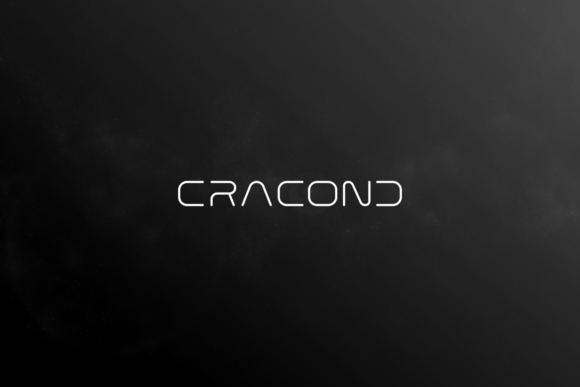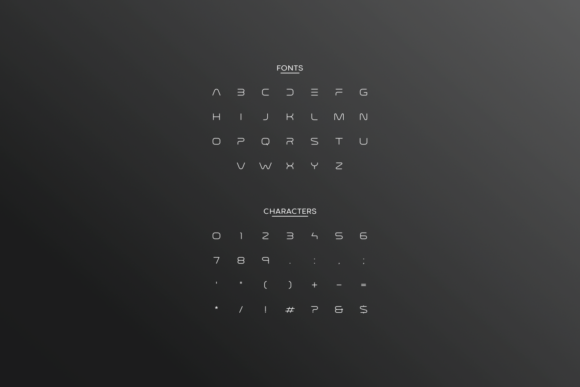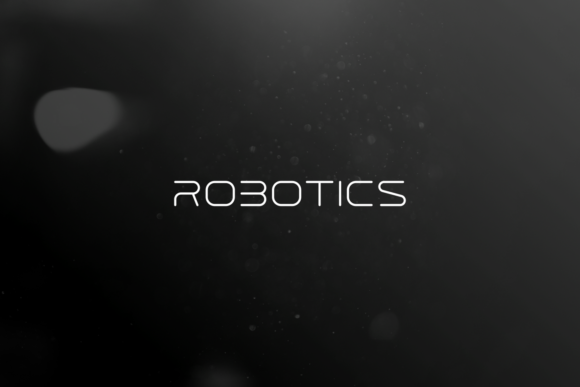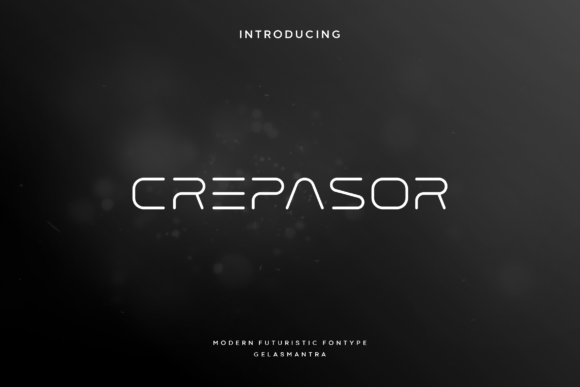
Introducing Crepasor Font: The Epitome of Modern Elegance
In the realm of typography, fonts play a pivotal role in defining the aesthetic and tone of any design project. Whether you’re crafting a stunning website, designing business cards, or brainstorming ideas for your next big project, the right font can elevate your work from ordinary to extraordinary. This is where Crepasor Font comes into play—a modern, elegant, and futuristic typeface that is poised to revolutionize the way you approach design.
The Essence of Crepasor Font
Crepasor Font is characterized by its sleek, contemporary design, boasting a thinner and more refined aesthetic that speaks to the needs of modern designers. Its futuristic appeal is undeniable, making it an ideal choice for projects that demand a cutting-edge look. The sophistication of Crepasor lies not just in its appearance but in its versatility. It seamlessly blends into various design contexts, from digital interfaces to print materials, ensuring that your work stands out with a unique touch.
Ideal Applications for Crepasor Font
The applications for Crepasor Font are vast and varied. Here are a few scenarios where this font truly shines:
- Web Designs: In the digital age, a website’s typography can make or break its user experience. Crepasor Font, with its modern and clean lines, enhances readability while providing a sophisticated look that captivates visitors.
- Business Cards: First impressions are crucial, and business cards are often the first point of contact. Crepasor’s elegant and professional appearance makes it perfect for business cards, helping you stand out in a crowded marketplace.
- Marketing Materials: From brochures to flyers, Crepasor Font can add a touch of sophistication and modernity to your marketing materials, ensuring they capture the attention of your target audience.
Why Choose Crepasor Font?
There are several reasons why designers and crafters should consider adding Crepasor Font to their arsenal:
- Unique Touch: Crepasor offers a distinctive look that can set your designs apart from the competition.
- Versatility: Its elegant and modern design makes it suitable for a wide range of projects, from digital to print.
- Future-Proof: With its futuristic appeal, Crepasor ensures that your designs will remain relevant and stylish for years to come.
Tips for Using Crepasor Font Effectively
To maximize the impact of Crepasor Font in your designs, consider the following tips:
- Pair with Complementary Fonts: While Crepasor is stunning on its own, pairing it with complementary fonts can add depth and interest to your designs.
- Experiment with Sizes and Weights: Don’t be afraid to experiment with different sizes and weights of Crepasor to create visual hierarchy and emphasis in your designs.
- Consider the Context: Always consider the context in which your design will be viewed and adjust your use of Crepasor accordingly. For instance, a website might benefit from a lighter weight for body text, while a business card might call for a bold statement.
Crepasor Font is more than just a typeface; it’s a design statement. Its modern elegance, futuristic appeal, and versatility make it an indispensable tool for designers and crafters looking to leave a lasting impression. Whether you’re working on a digital project, a print design, or anything in between, Crepasor Font offers the perfect blend of style and functionality. So, don’t hesitate to grab Crepasor and unleash your creativity. With this font in your collection, the possibilities are endless, and your designs are sure to stand out in a world where aesthetics matter.